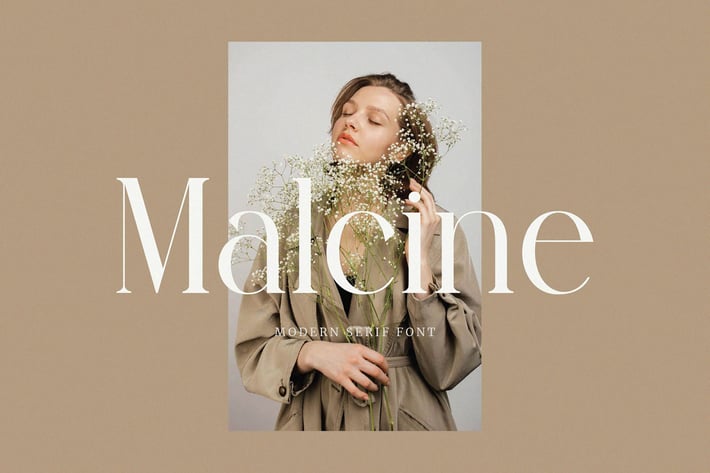
Malcine - Classy Serif Font
Malcine is a classy and stylish font, best used as a display for headings, logos, branding, magazines, product packaging and invitations.